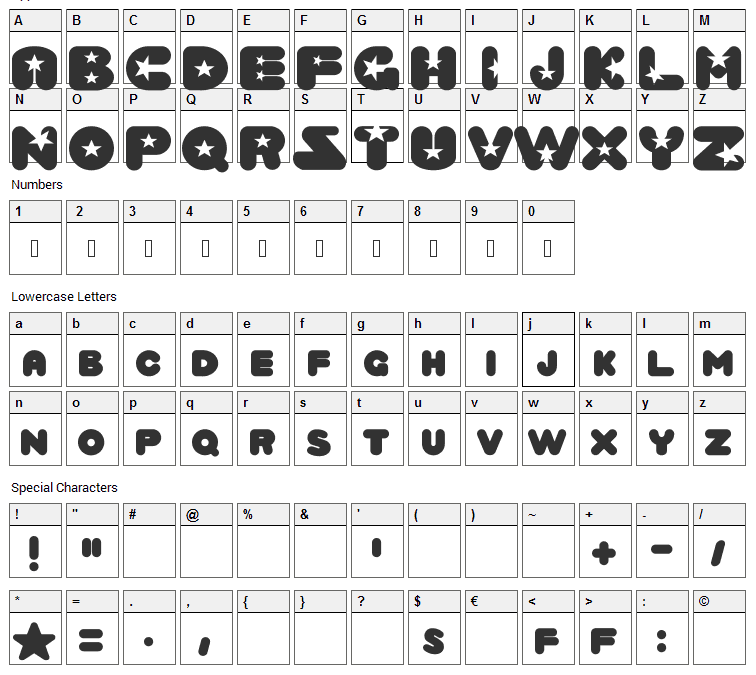
The Steven Universe font, inspired by the show’s vibrant and whimsical design, reflects the playful, cosmic themes of the animated series. Created for its logo and title cards, this font captures the essence of the beloved characters and their adventures. Ideal for designers, fans, or anyone looking to infuse a touch of interstellar charm into their projects, the Steven Universe font brings creativity and fun to any design.
Whether for personal projects or fan art, this font is the perfect choice to add that unique Steven Universe touch.
What Is the Steven Universe Font?
The font commonly associated with Steven Universe is the Crystal Universe font, designed by MaxiGamer. This typeface closely mimics the show’s title font, characterized by bold, rounded, and slightly geometric lettering that captures the whimsical yet adventurous tone of the series. Another popular font inspired by the show is Crewniverse, which is used on various promotional materials and the show’s official Tumblr page​.
Features of the Steven Universe Font
- Bold and Rounded Style: The Steven Universe logo font features soft, rounded edges with a geometric base, making it approachable and child-friendly while maintaining a futuristic look.
- Playful and Dynamic: The letterforms have a slight tilt and variance, giving a sense of movement and fun.
- Customizable Glyphs: The fonts, especially Crewniverse, include a wide range of characters and symbols, allowing for versatile usage across different languages and formats​.
Applications of the Steven Universe Font
The font Steven Universe can be used in various creative and professional projects, including:
- Fan Art: Add authenticity to your Steven Universe-inspired artwork by using the official-looking typeface.
- Event Invitations: Create themed invitations for birthday parties, cosplay events, or fan meetups.
- Merchandise: Design custom t-shirts, posters, or stickers for Steven Universe fans.
- Social Media Graphics: Use the font to make eye-catching posts, banners, and profile pictures that resonate with the Steven Universe community​.
Conclusion: Steven Universe Font
The Steven Universe title font is a perfect blend of fun, adventure, and cosmic charm, much like the show it represents. Whether you’re looking to enhance your fan art, create themed merchandise, or simply bring a touch of Steven Universe to your projects, this font is a stellar choice.